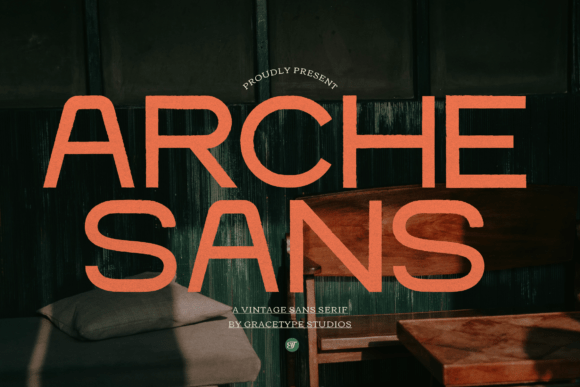
The Quest for the Perfect Font: Discovering Arche Sans
I still remember the design project that led me to Arche Sans Font. I was working on a branding campaign for a tech startup that wanted to evoke a sense of nostalgia while still feeling modern and sleek. I spent hours scouring font libraries, but nothing seemed to strike the right balance. That was until I stumbled upon Arche Sans – a vintage sans serif reimagined with modern charm.
First Impressions: A Love Affair with Arche Sans
Arche Sans Font is a game-changer for designers who want to combine authenticity with innovation. This font blends a retro soul with clean, geometric lines that feel both warm and tech-forward, making it the perfect bridge between past and future.
What I Love About Arche Sans ✨
- ✅ Unique blend of retro and modern styles: Arche Sans seamlessly merges vintage charm with contemporary flair, making it perfect for projects that require a distinctive look.
- ✅ Clean and geometric lines: The font’s sleek design ensures it looks great in both digital and print formats.
- ✅ Versatile and adaptable: From stylish logos and magazine covers to user-friendly websites and futuristic posters, Arche Sans adapts beautifully to every medium.
- ✅ PUA-encoded for effortless access: The font’s encoding allows for easy access to a wide range of glyphs and stylistic alternates.
While Arche Sans is an exceptional font, there are a few minor quirks to be aware of:
- 🤔 Some characters may require manual kerning: As with any font, you may need to adjust kerning for certain character combinations to achieve optimal results.
- 🤔 Limited availability of language support: While Arche Sans supports a range of languages, it may not cover every language or script.
The Story Behind Arche Sans
Arche Sans was designed with the goal of bridging the gap between past and present. Inspired by vintage typography and modern design principles, this font combines the best of both worlds. Its creator aimed to craft a typeface that would be both nostalgic and forward-thinking – a true archetype for modern design.
| What makes Arche Sans unique? | Arche Sans stands out with its blend of vintage charm and modern geometric lines, making it perfect for projects that require a distinctive look. |
| Is Arche Sans suitable for digital use? | Yes, Arche Sans is designed to be versatile and adaptable, making it suitable for both digital and print formats. |
| Does Arche Sans support multiple languages? | Arche Sans supports a range of languages, but it’s essential to check the specific language support to ensure it meets your project’s requirements. |